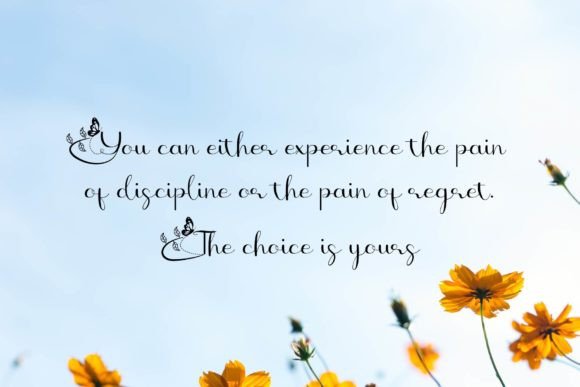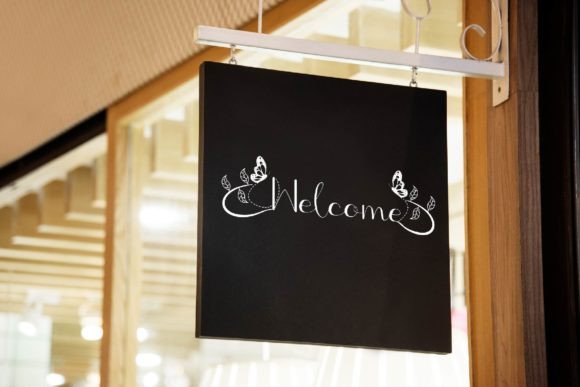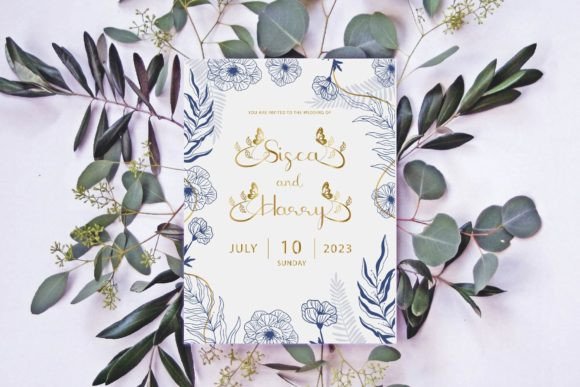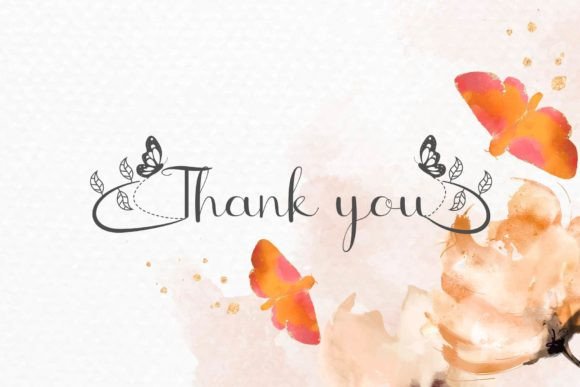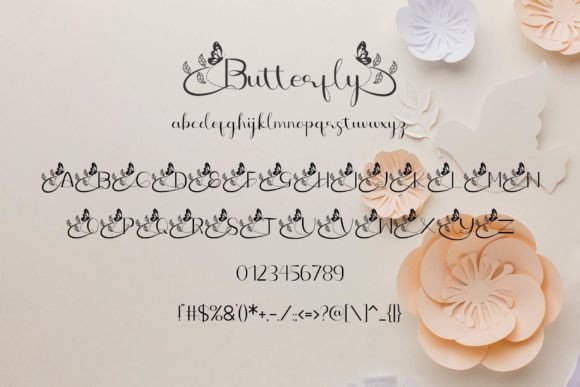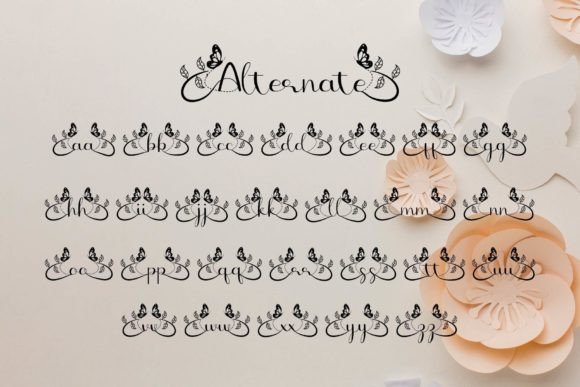
Introducing the Elegant Butterfly Font: Elevate Your Designs with a Touch of Sophistication
In the world of typography, few fonts manage to convey the essence of elegance and style as effectively as the Butterfly Font. This stunning, decorative handwritten font has been making waves among designers and crafters alike, and for good reason. Its versatility, beauty, and ease of use make it an indispensable tool for anyone looking to add a touch of sophistication to their projects.
What Makes Butterfly Font So Special?
Butterfly Font is more than just a pretty face; it’s a comprehensive design solution that caters to a wide range of creative needs. Here are some of its standout features:
- Stylish and Elegant: The font boasts a stylish and incredibly elegant look that instantly elevates any design. Its decorative elements and fluid strokes give it a luxurious feel, perfect for projects that require a bit of glamour.
- Versatile: Whether you’re working on wedding invitations, thank you cards, quotes, greeting cards, logos, business cards, or any other design that needs a handwritten touch, Butterfly Font fits seamlessly into any project.
- PUA Encoded: One of the most significant advantages of this font is its PUA (Private Use Area) encoding. This means that you can easily access all the glyphs and alternates, giving you greater flexibility and creative control over your designs.
Butterfly Font is an excellent choice for both professional designers and hobbyists. Its user-friendly nature and extensive feature set make it accessible to those with varying levels of design experience. Here are some ways designers and crafters can benefit from using Butterfly Font:
- Wedding and Event Stationery: Create beautiful wedding invitations, save-the-date cards, and other event stationery that exudes elegance and sophistication.
- Branding and Logos: Use Butterfly Font to develop unique and memorable logos and brand identities that stand out from the competition.
- Greeting Cards and Quotes: Add a personal touch to your greeting cards, quotes, and other print materials with this lovely font.
- DIY Projects: Crafters can use Butterfly Font to add a professional touch to their DIY projects, such as handmade cards, scrapbooking, and other paper crafts.
Tips for Getting the Most Out of Butterfly Font
To truly maximize the potential of Butterfly Font, consider the following tips:
- Experiment with Colors: The font’s elegance shines through in various colors. Don’t be afraid to experiment with different color schemes to find the perfect match for your project.
- Mix and Match: Combine Butterfly Font with other design elements, such as images, textures, and graphics, to create visually appealing compositions.
- Play with Glyphs and Alternates: Take advantage of the PUA encoding to explore the font’s full range of glyphs and alternates. This can add uniqueness and personality to your designs.
Butterfly Font is a stylish, elegant, and versatile decorative handwritten font that can elevate any design project. Its PUA encoding, beautiful appearance, and wide range of applications make it an excellent addition to any designer’s or crafter’s toolkit. Whether you’re creating wedding stationery, logos, greeting cards, or DIY projects, Butterfly Font is sure to bring a touch of sophistication and style to your work.